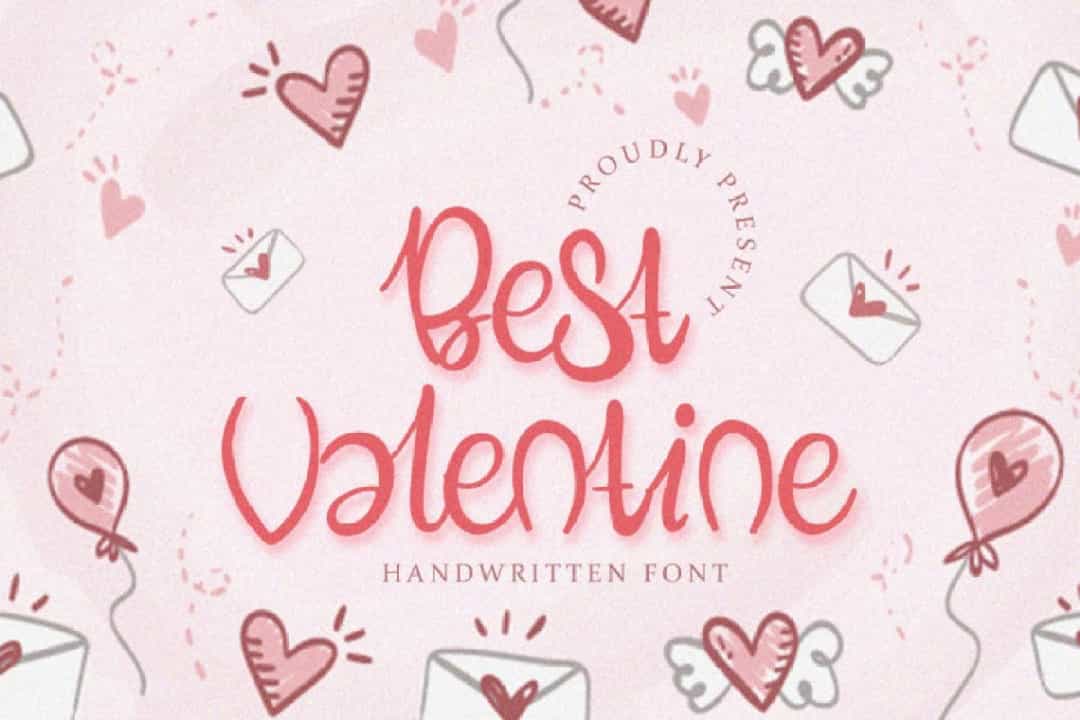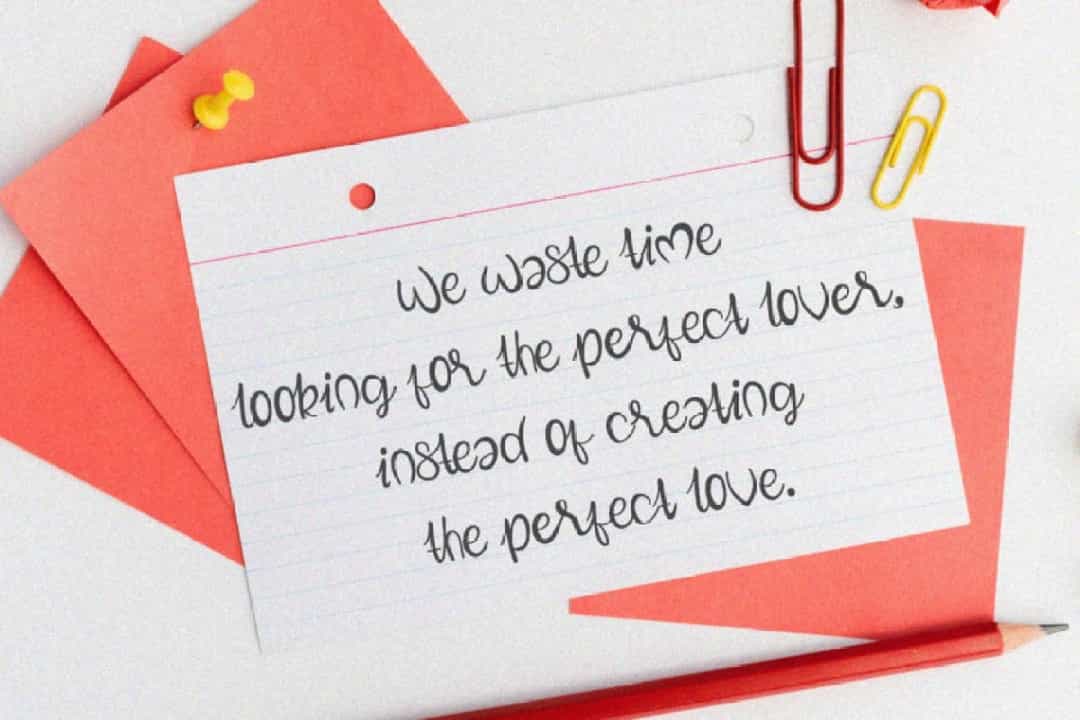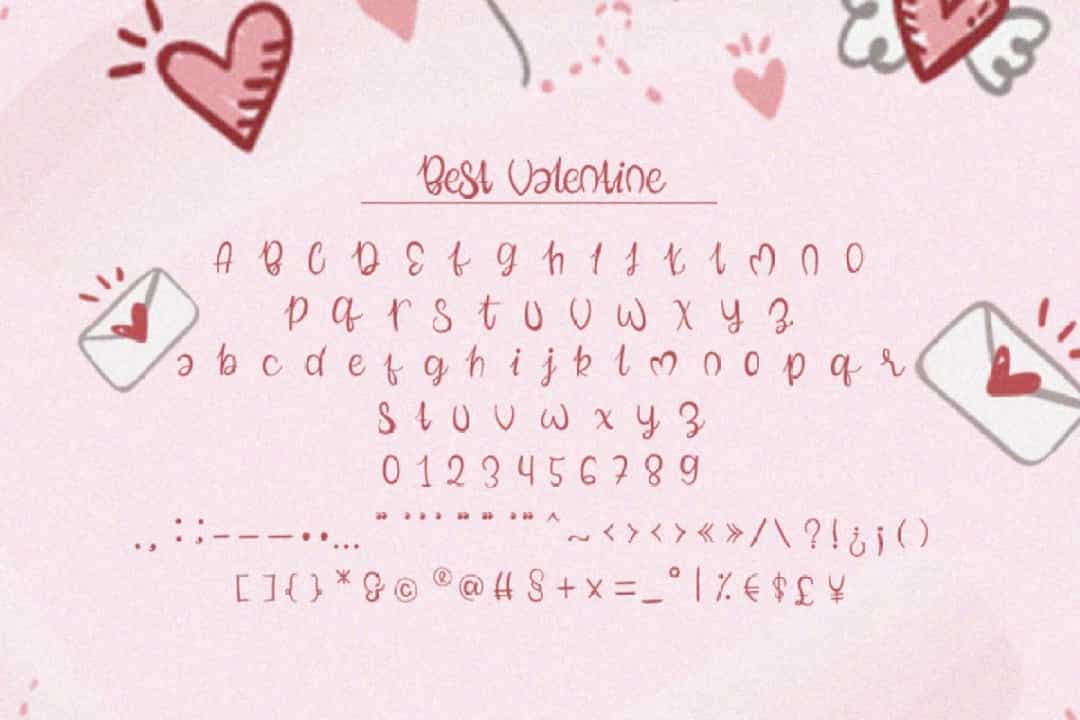
The Best Valentine is an extraordinary and stunning handwritten font with a natural and friendly touch, is suitable for branding, logo design and Lettering logotype, clothing magazine covers, packaging posters shopping bags T-shirts book covers photographs special occasions and any other design purposes.